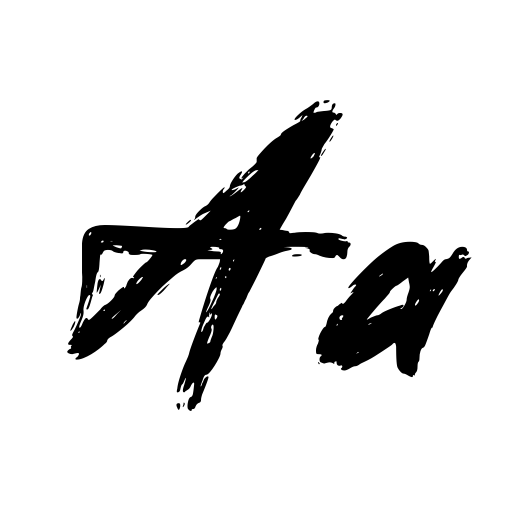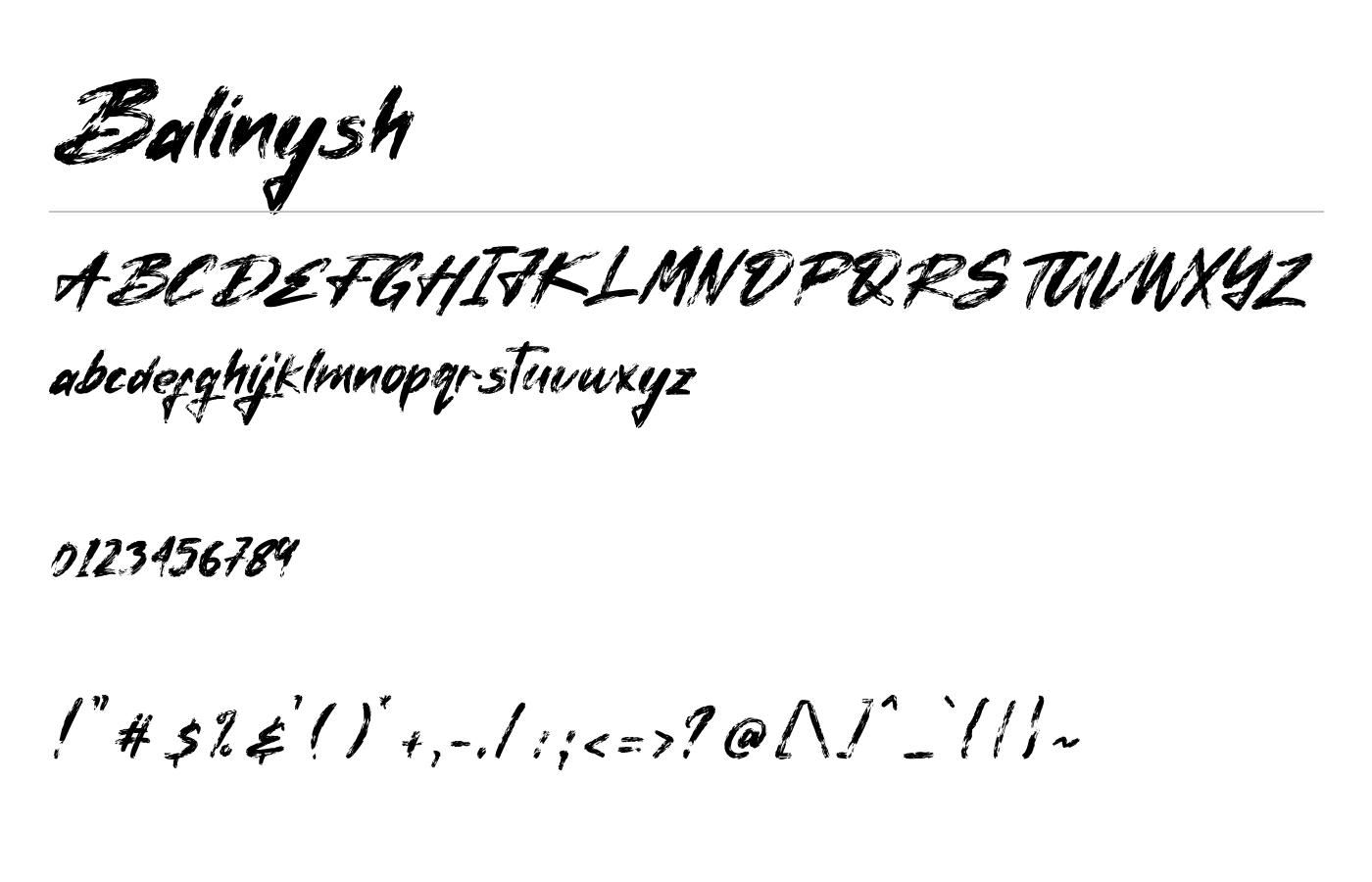
Balinysh is a bold, brush-script font with a textured, hand-painted feel that adds a dynamic and expressive touch to any design. Its irregular strokes and slightly uneven letterforms create a lively and artistic vibe, making it perfect for creative projects, branding, posters, and headlines that seek to convey energy and personality. This font works best when you want to stand out with a casual yet striking style.
Balinysh Font
About Balinysh Font